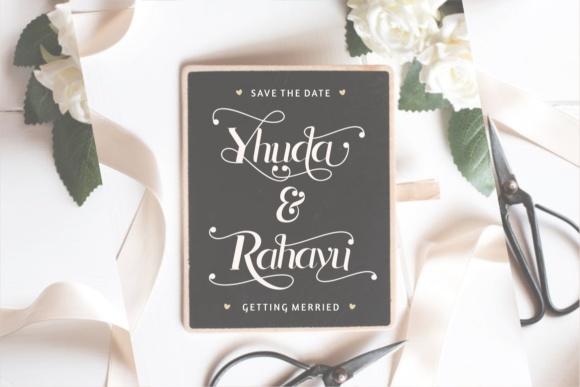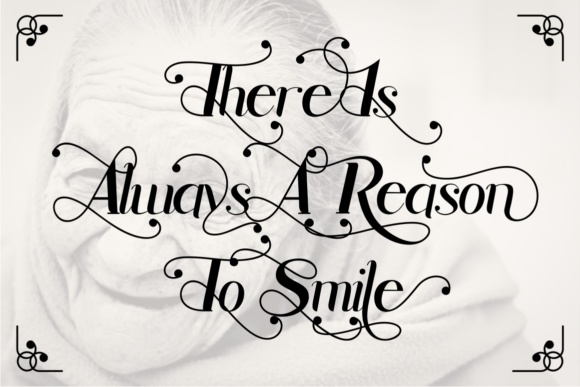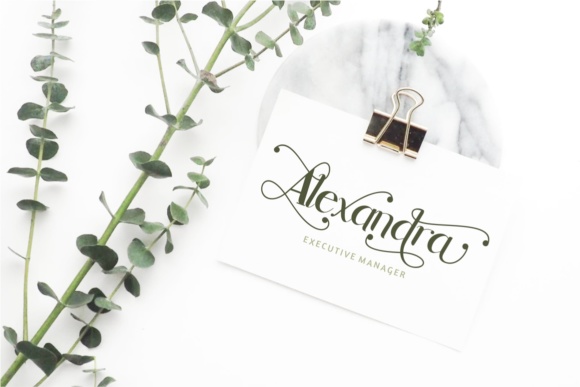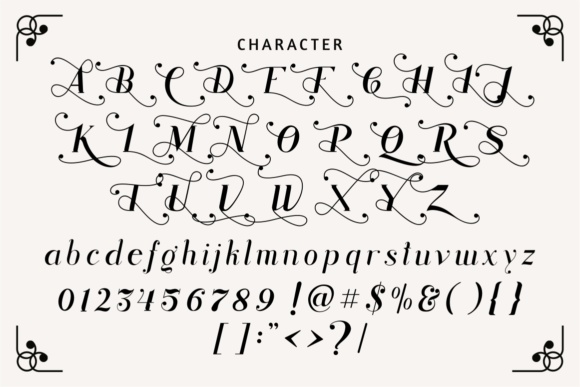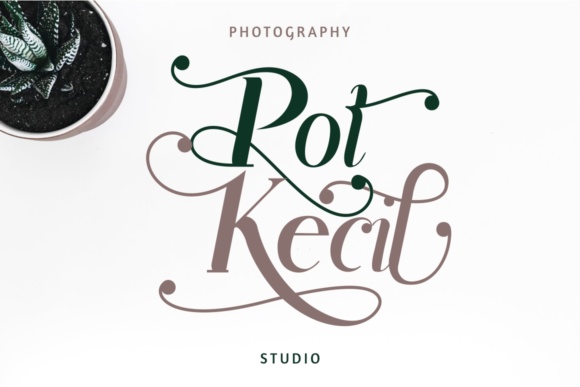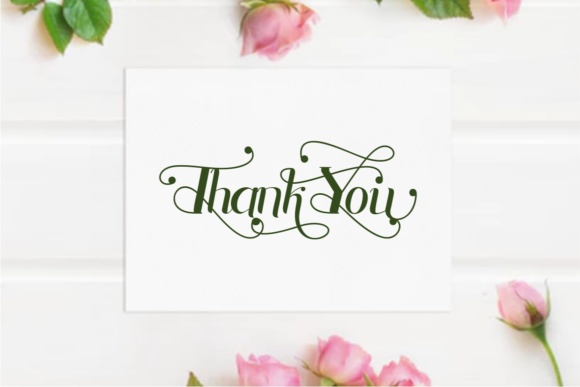
Introduction to Rhonde Font
The Rhonde is a modern typeface with swashes that can be combined to create unique and beautiful designs.
It’s great for logos, tittles, headlines, taglines, t-shirts, handwritten quotes, product packaging, posters, merchandise, and much more .